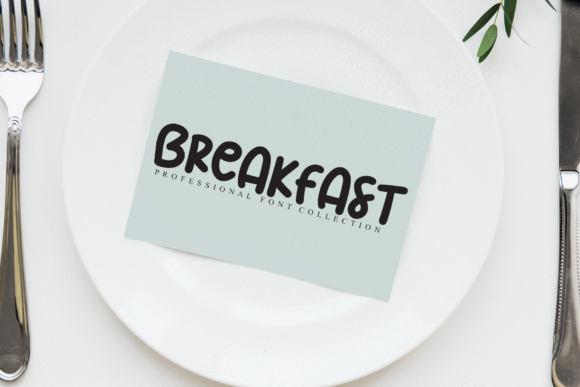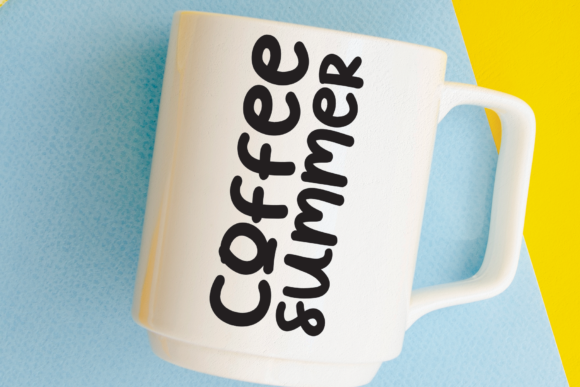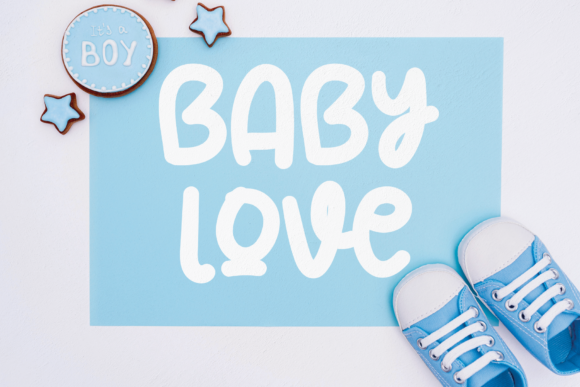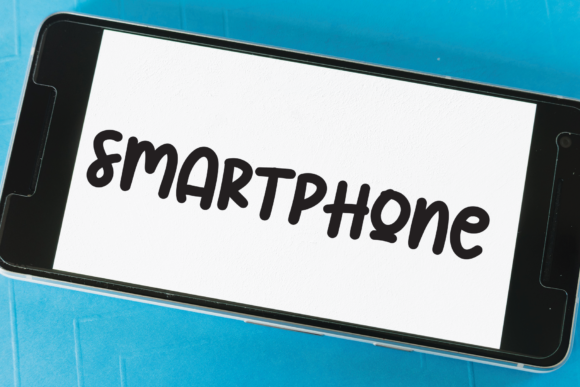
Sugar Font
About Sugar Font
Sugar is an unusually chunky and fun handwritten font. It works great with any project that needs to stand out but still needs a sweet, authentic look!